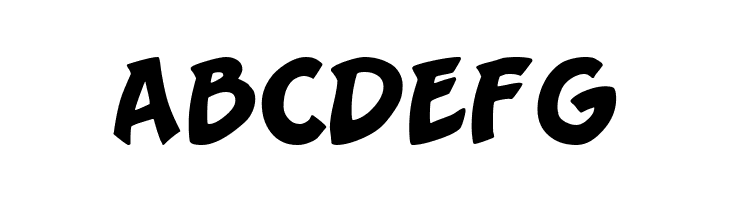
Metal Gear Solid 2 Font
A bold, condensed font with a modern and impactful style.
A geometric font with circular and linear elements, offering a modern and structured look.
Coltan Gea Bold Italic Font
A bold, italicized font with strong strokes and a modern, versatile style.
Gearhead Condensed Italic Font
Font by Daniel Zadorozny - www.iconian.com - Free for personal use
A bold, condensed, and italic font with a futuristic, angular design.
GearProportion Font
Font by bridgeco.jp
A bold, geometric font with a modern and industrial style.
Gear Crank Font
A bold, industrial-themed font with gear and crank motifs.
Gearhead Expanded Italic Font
Font by Daniel Zadorozny - www.iconian.com - Free for personal use
A bold, expanded, and italicized futuristic font with sharp, angular edges.
Gearhead Italic Font
Font by Daniel Zadorozny - www.iconian.com - Free for personal use
A bold, italicized font with a futuristic, mechanical style.
Gearhead Expanded Font
Font by Daniel Zadorozny - www.iconian.com - Free for personal use
Stucked in Gears Font
A serif font encased in bold, black gear shapes, ideal for industrial-themed designs.
Futurex Metal-gear Bold Font